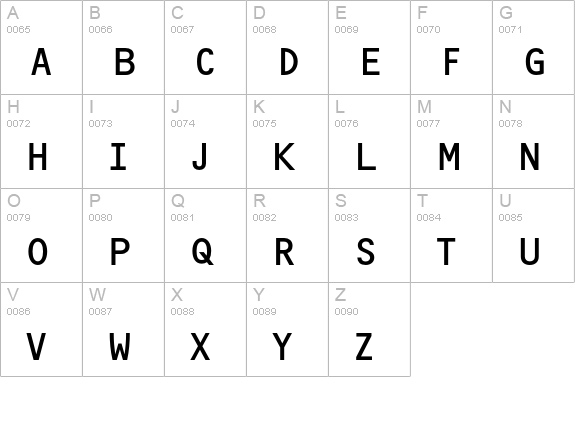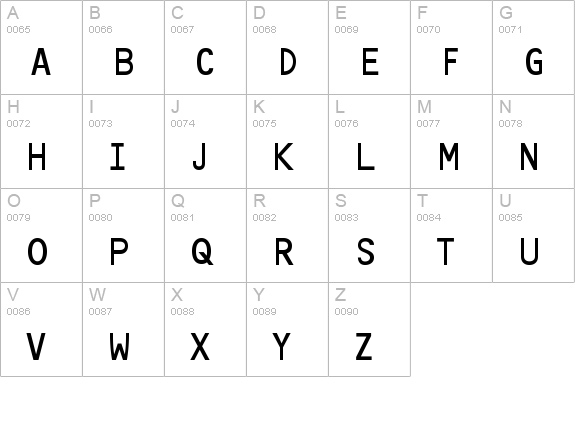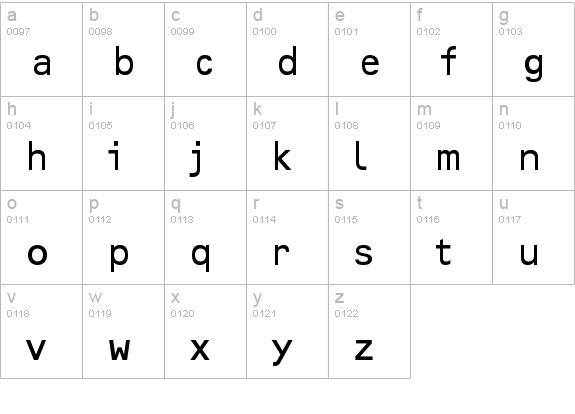
OCRF-Regular is the standard, neutral variant in the OCRF typeface family \xE2\x80\x94 well suited to general body text, paragraphs, and standard typographic work.
OCRF-Regular is a versatile and modern font that combines the classic look of typewriter text with a clean and polished design. This font is perfect for projects that require a professional and timeless aesthetic, such as resumes, reports, and invoices. The OCRF-Regular font features a balanced combination of sharp angles and rounded edges, making it easy to read and visually appealing. Best of all, OCRF-Regular is available for free download at FontsMarket.com, making it accessible to a wide range of users looking to enhance their projects with a high-quality font. Whether you're a designer, student, or business professional, OCRF-Regular is a fantastic choice for adding a touch of sophistication to your work. Download OCRF-Regular today and elevate your typography game with this elegant and versatile font.